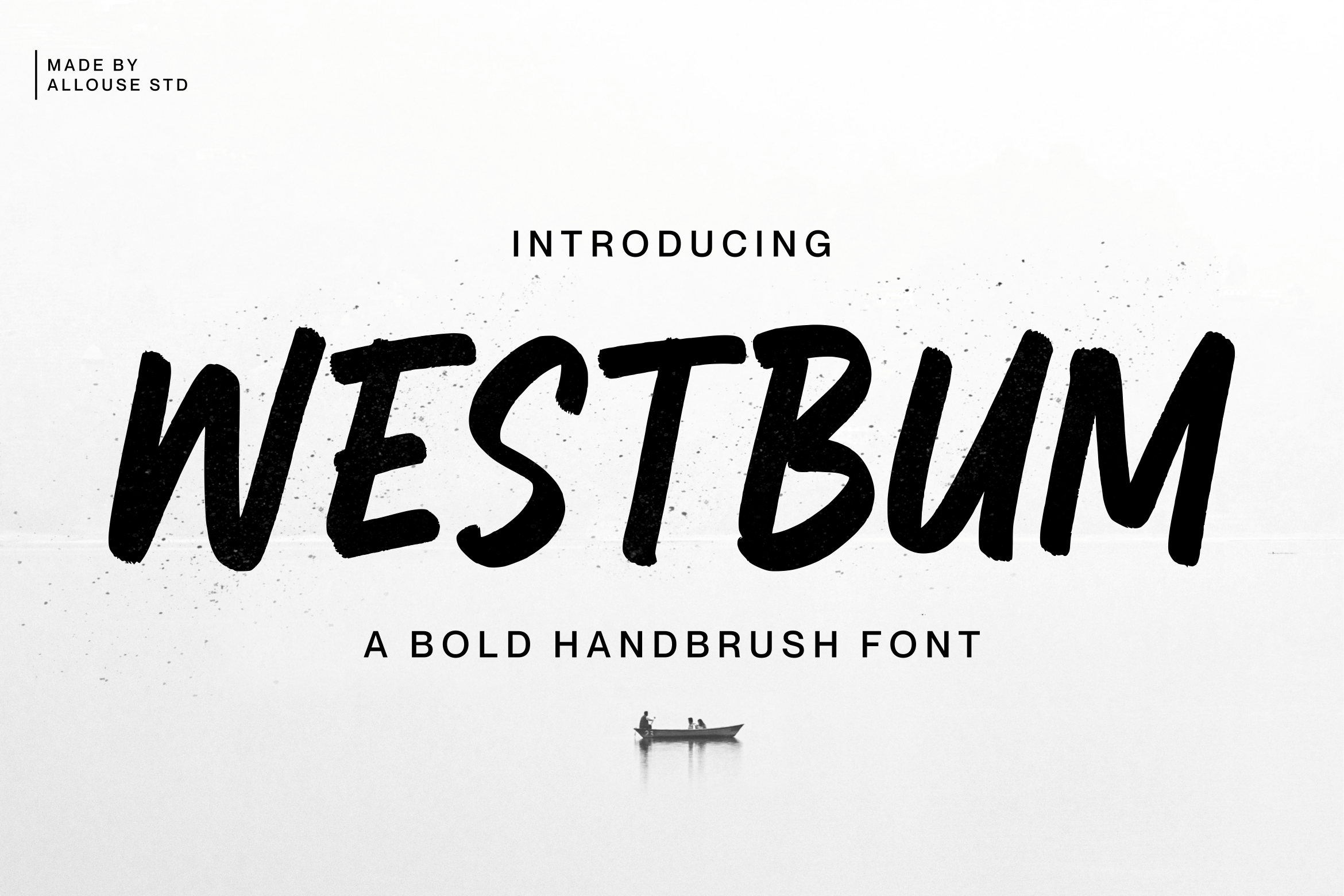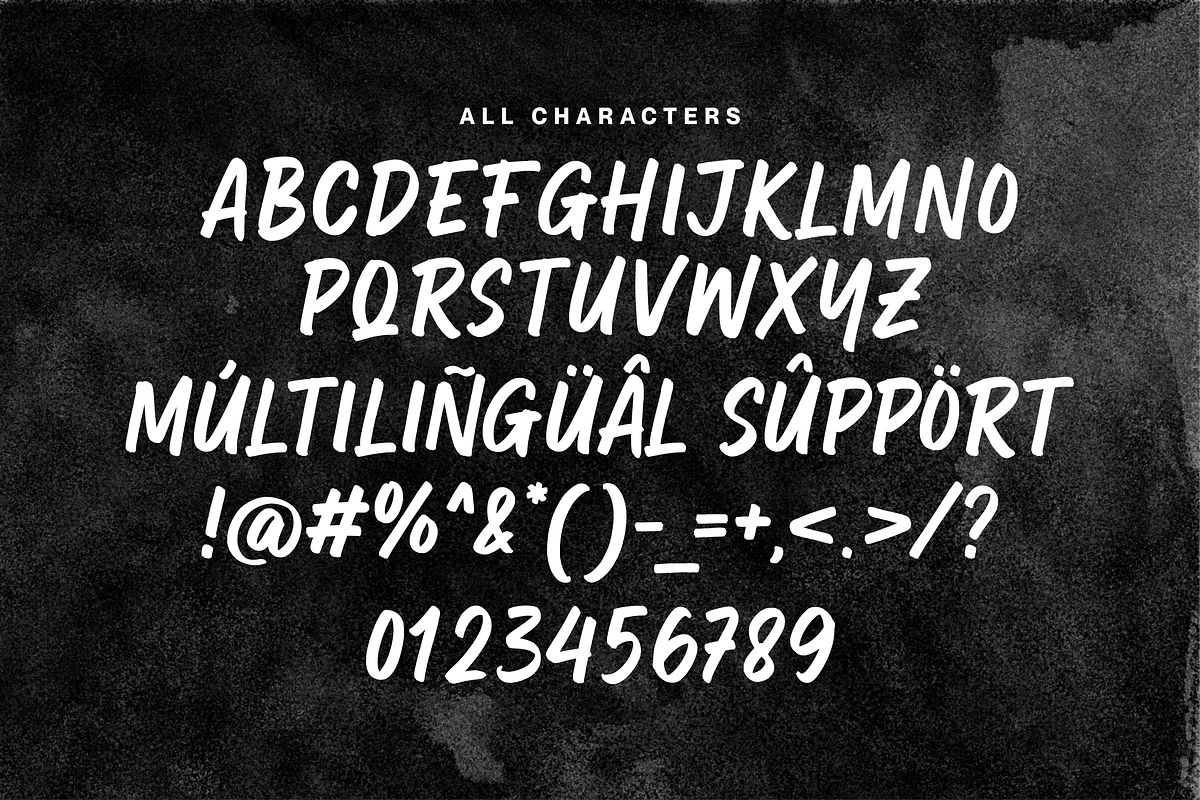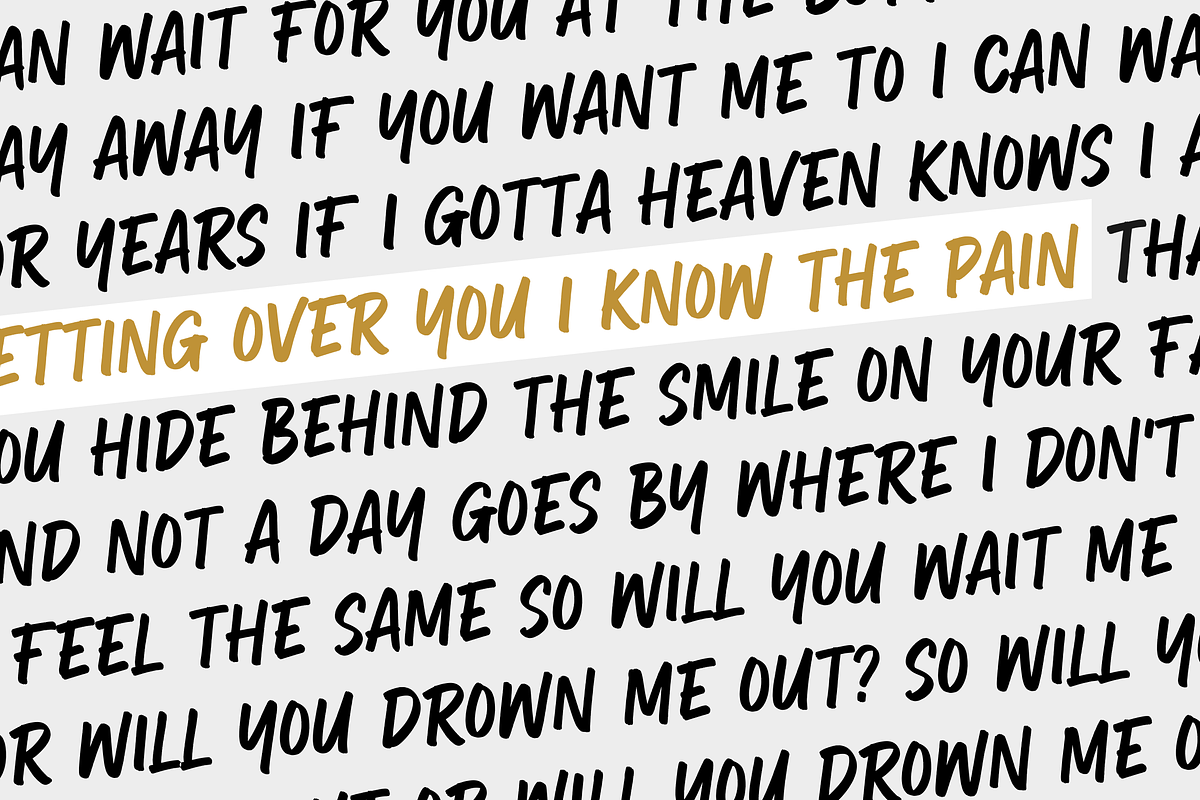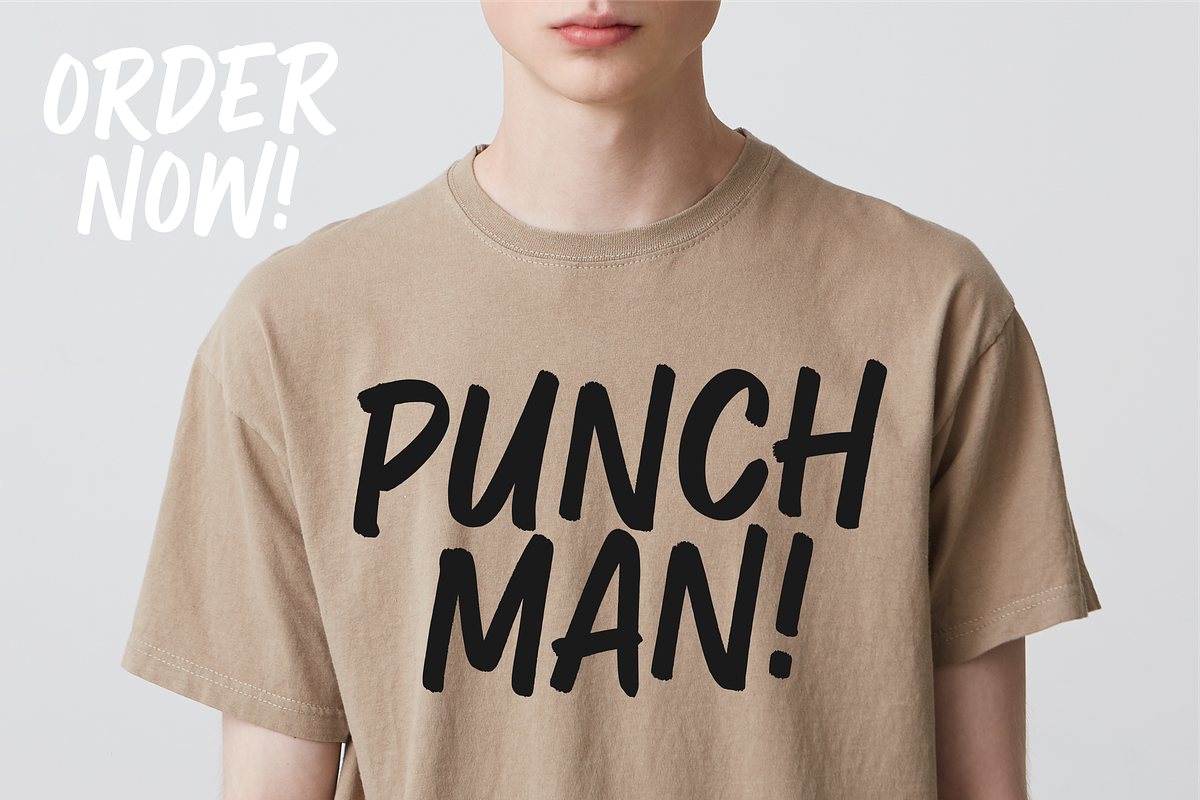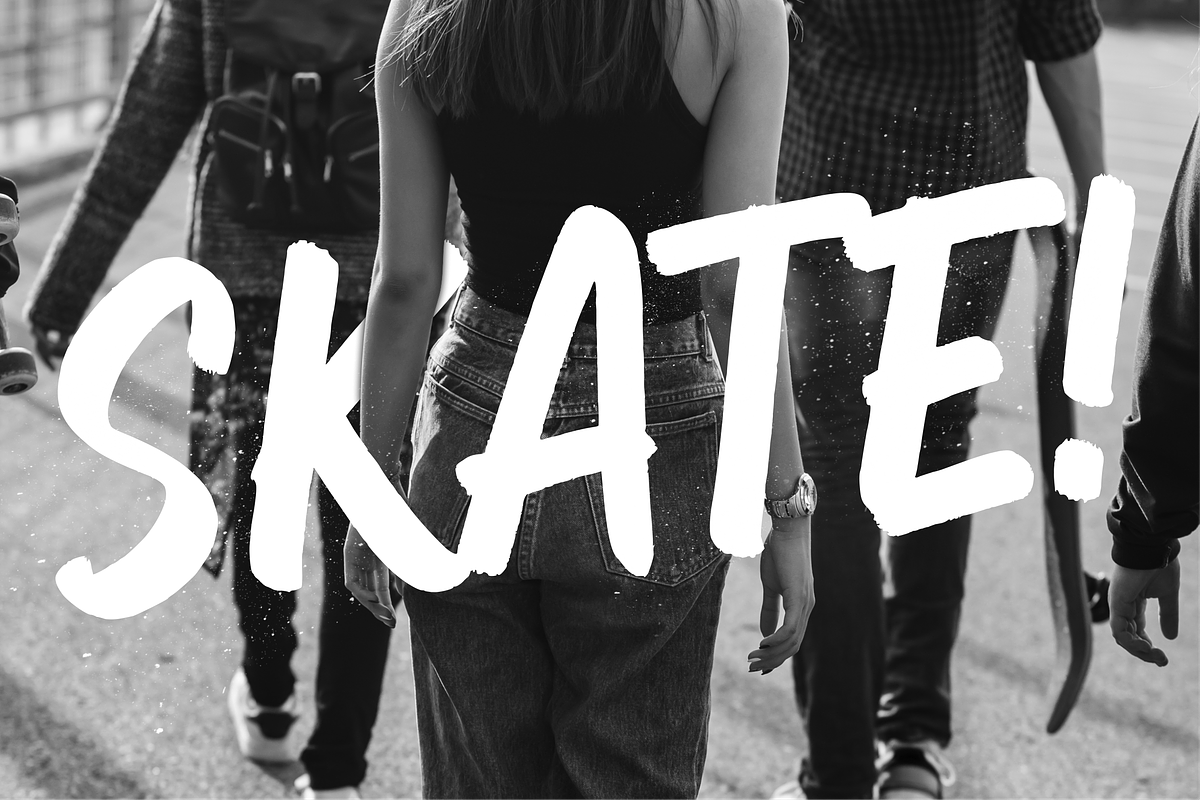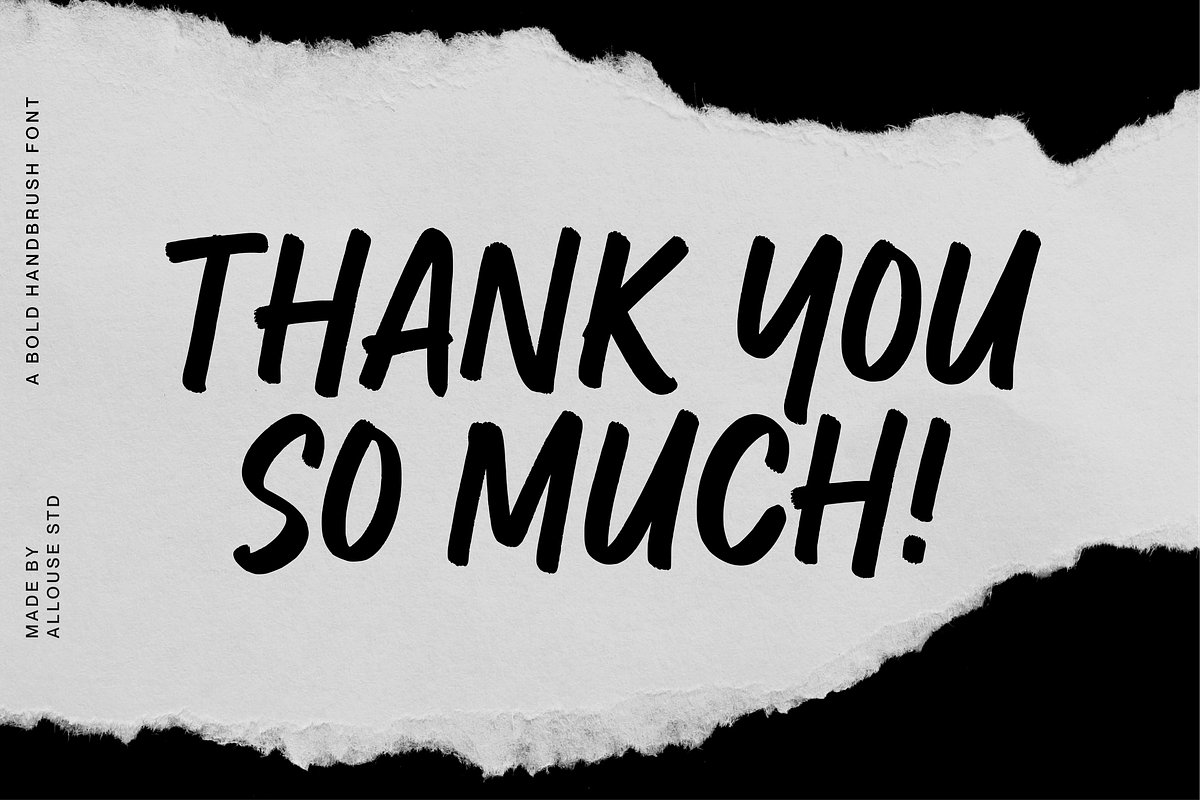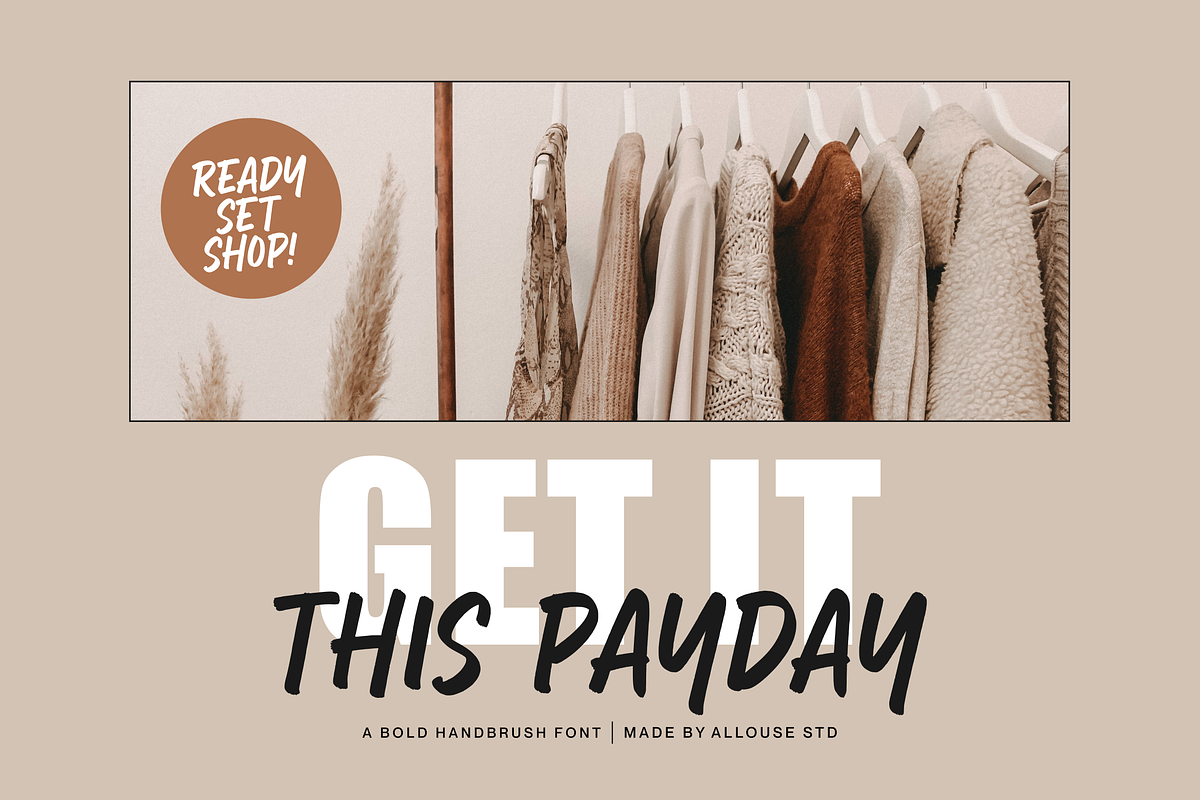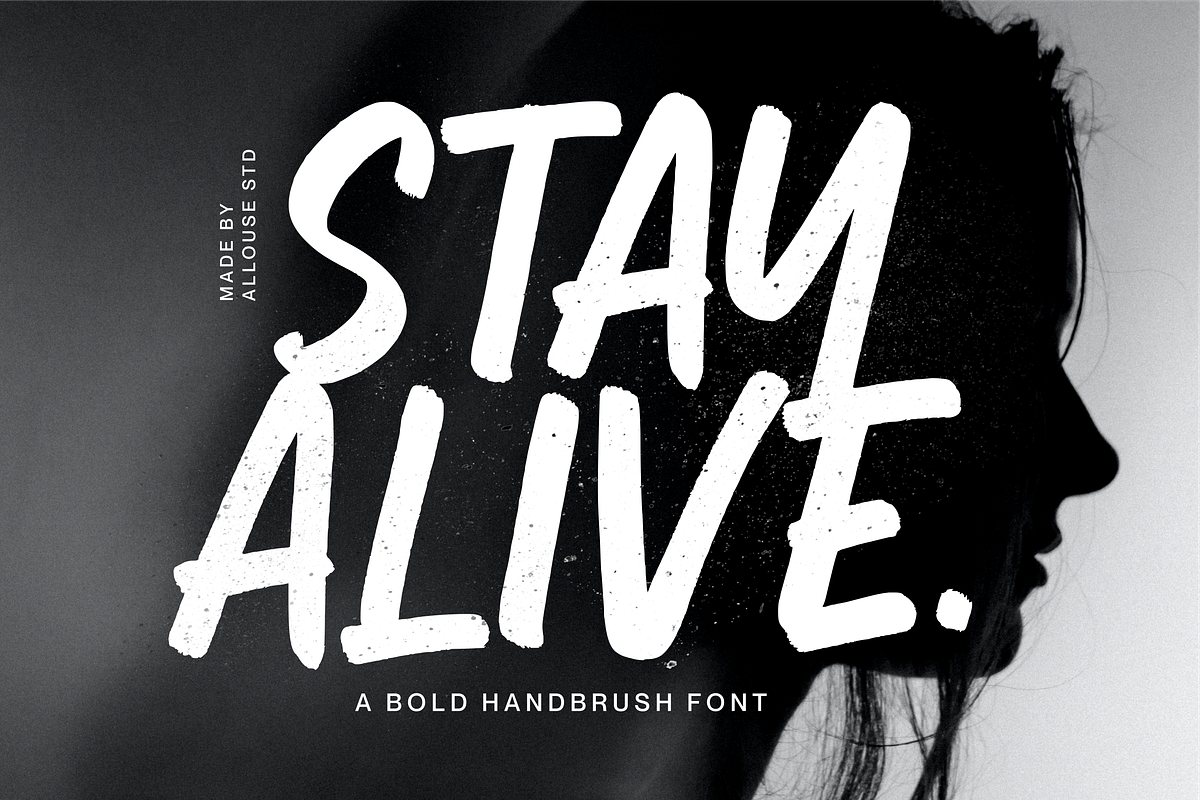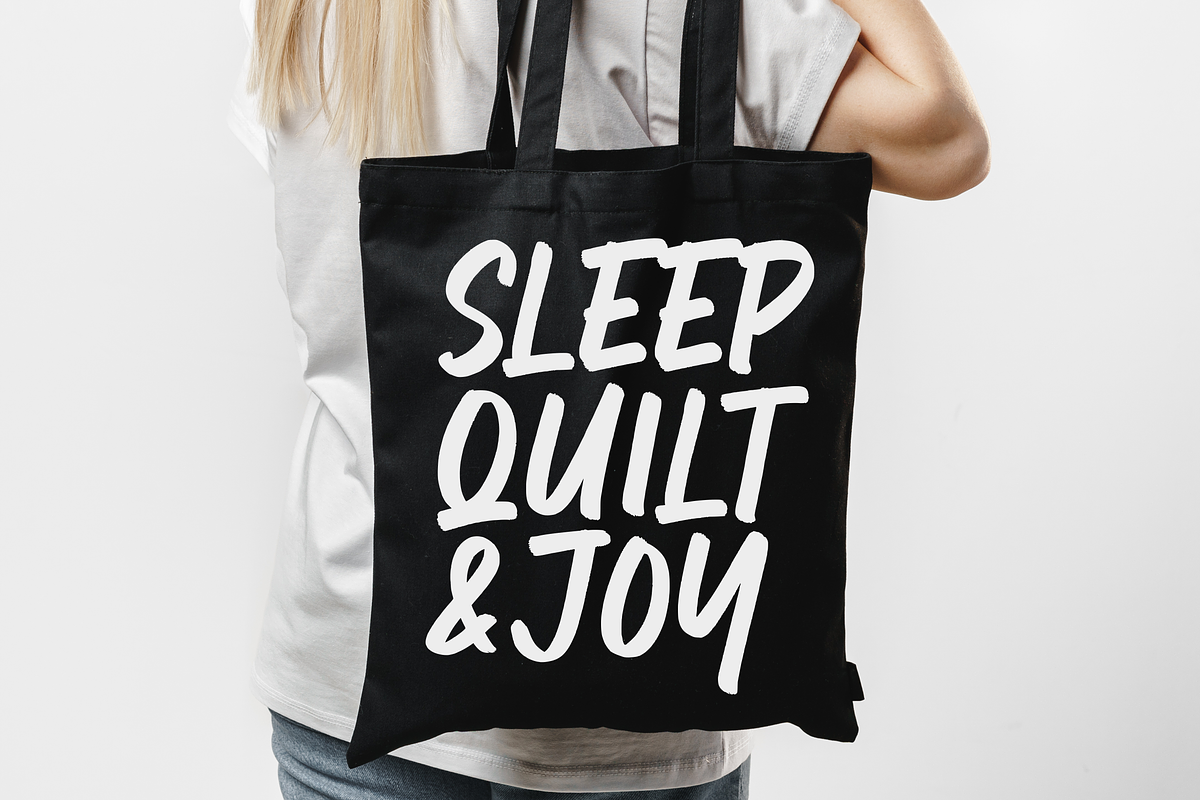
Westbum A Bold Handbrush Font
Proudly Presenting, Westbum A Bold Handbrush Font.
Westbum is perfect for any titles, logo, product packaging, branding project, megazine, social media, wedding, or just used to express words above the background.
Westbum also come with Multi-Lingual Support.